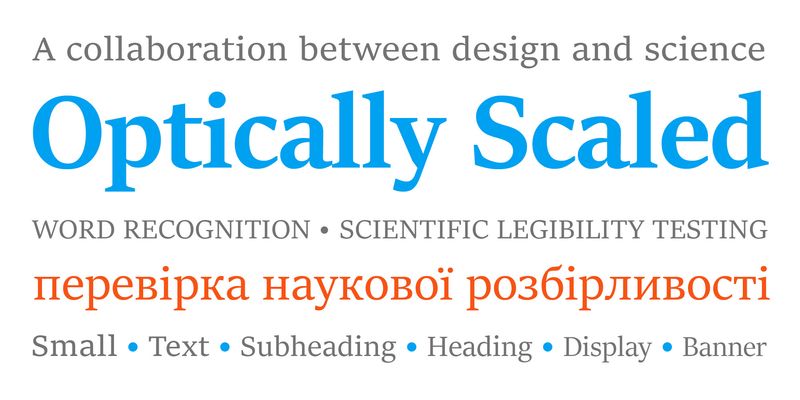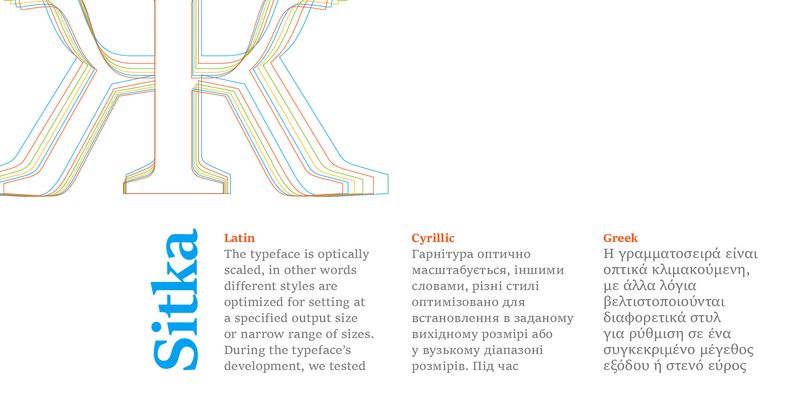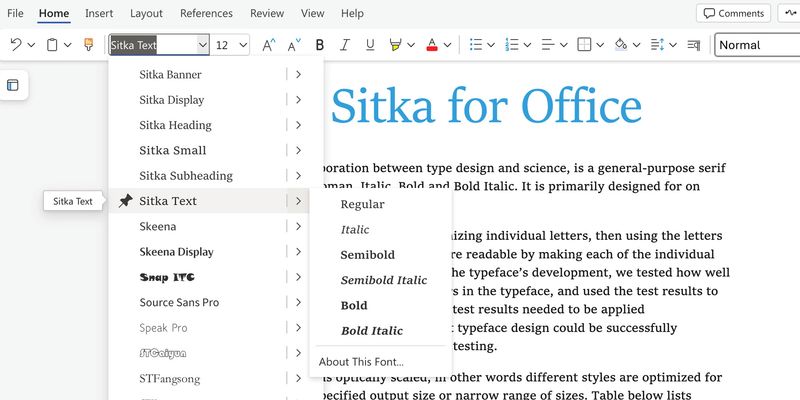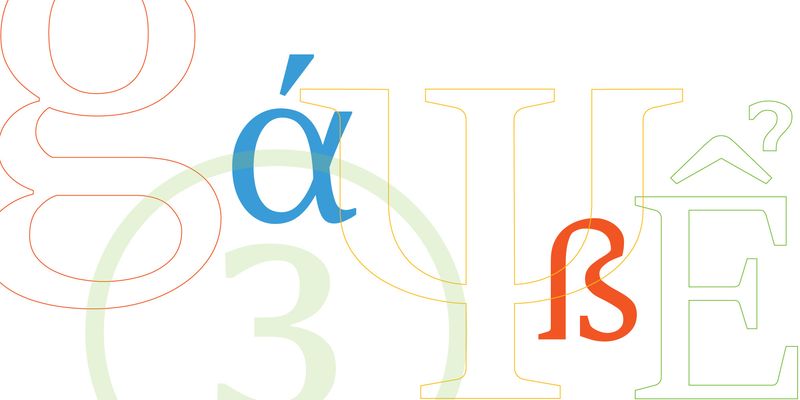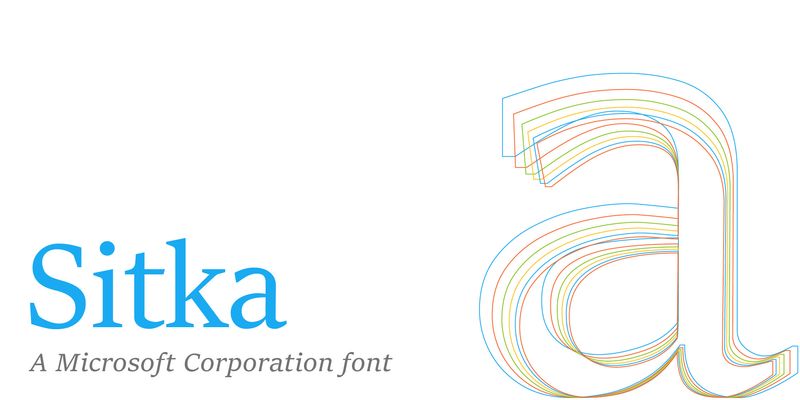
Sitka
Sitka is designed for reading, at any size. It has six optical sizes, different versions of the same letters that are subtly adjusted to work best at a particular range of sizes. Sitka Text is ideal for body text, while the larger sizes are, as their names suggest, useful for subheads, headlines, titles, and large banners. Sitka’s letters are wide and open, even in the italics. Use Sitka for long body text and accompanying headings of various sizes, choosing the appropriate optical size for each. When you set a heading all in capital letters, expand the spaces between letters slightly for optimum readability.
Sitka was designed to be extremely legible. Type designer Matthew Carter worked with Microsoft’s legibility experts to find the most legible forms for a serif typeface, then developed the range of optical sizes. The process was a successful test of integrating design experience with the results of scientific legibility testing.